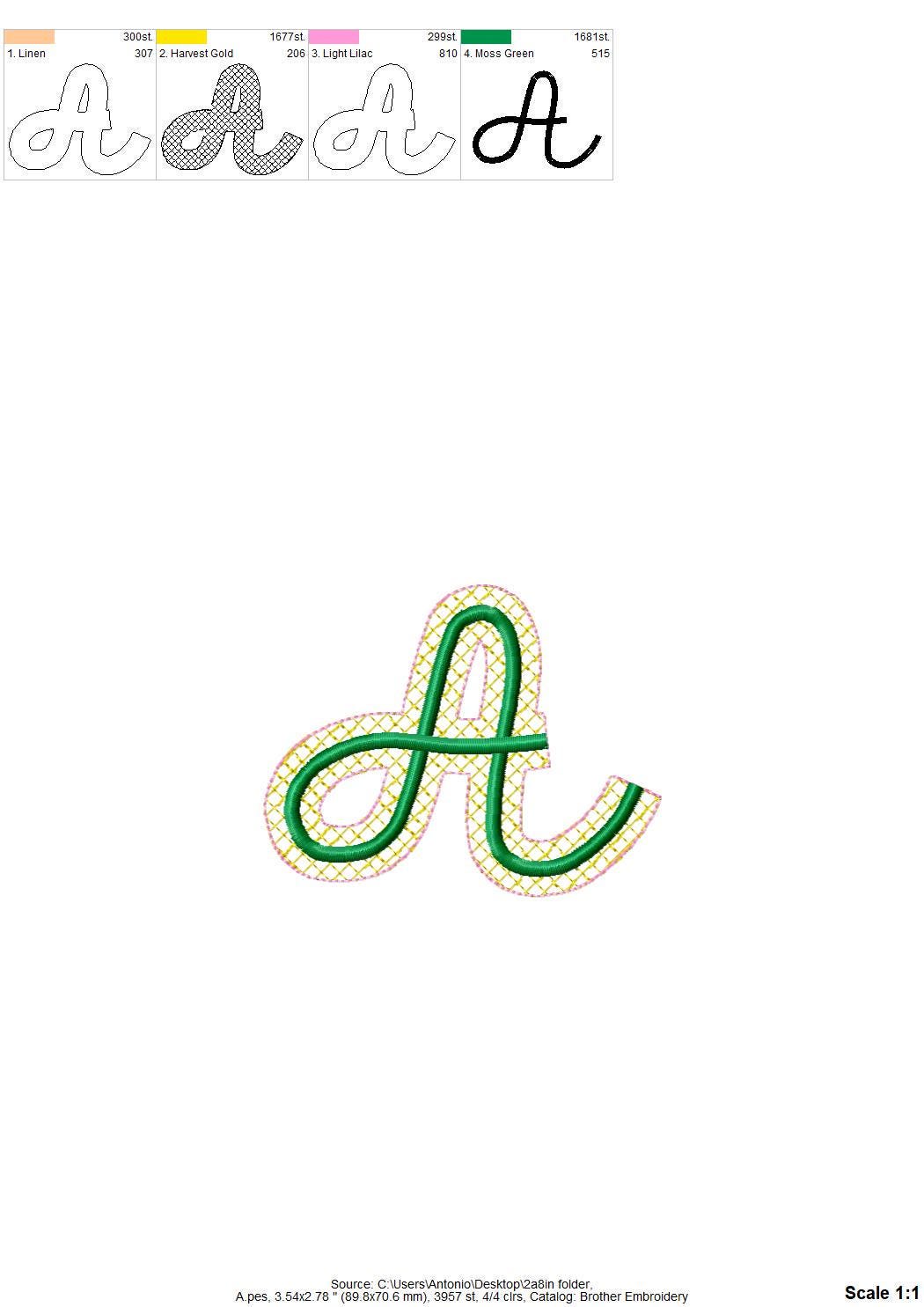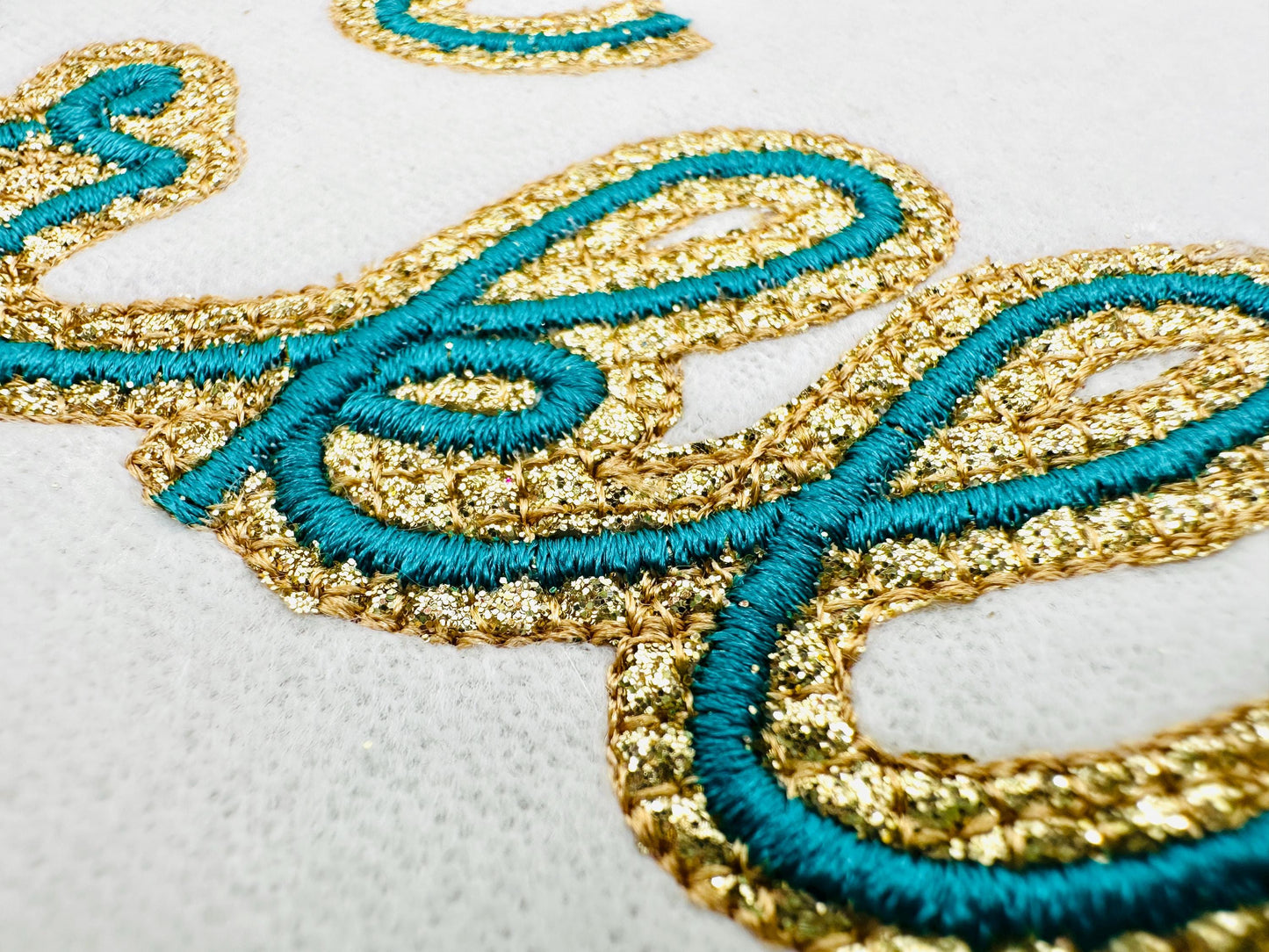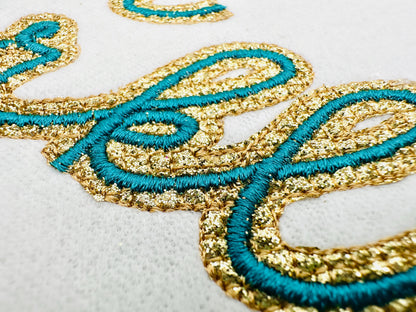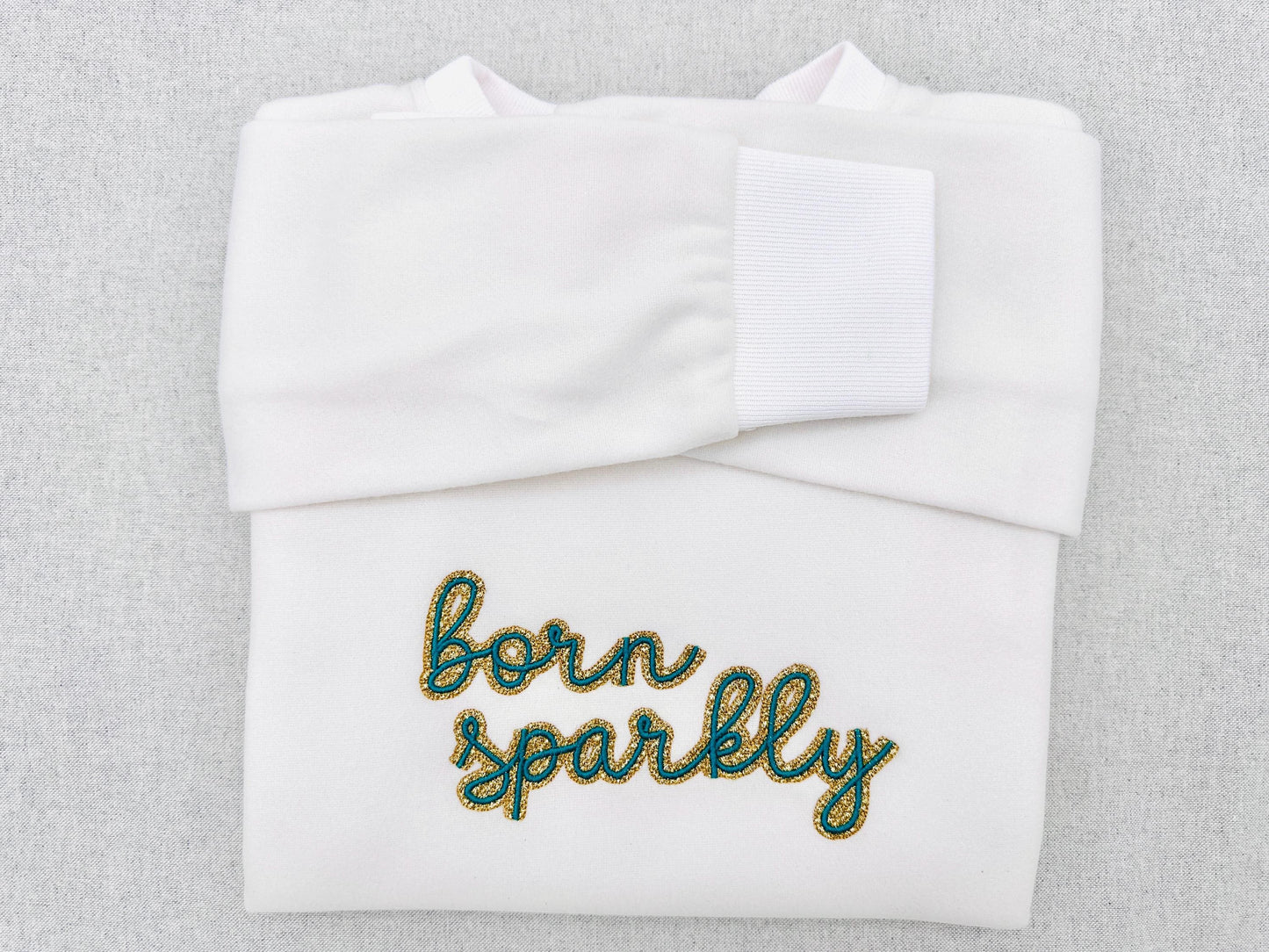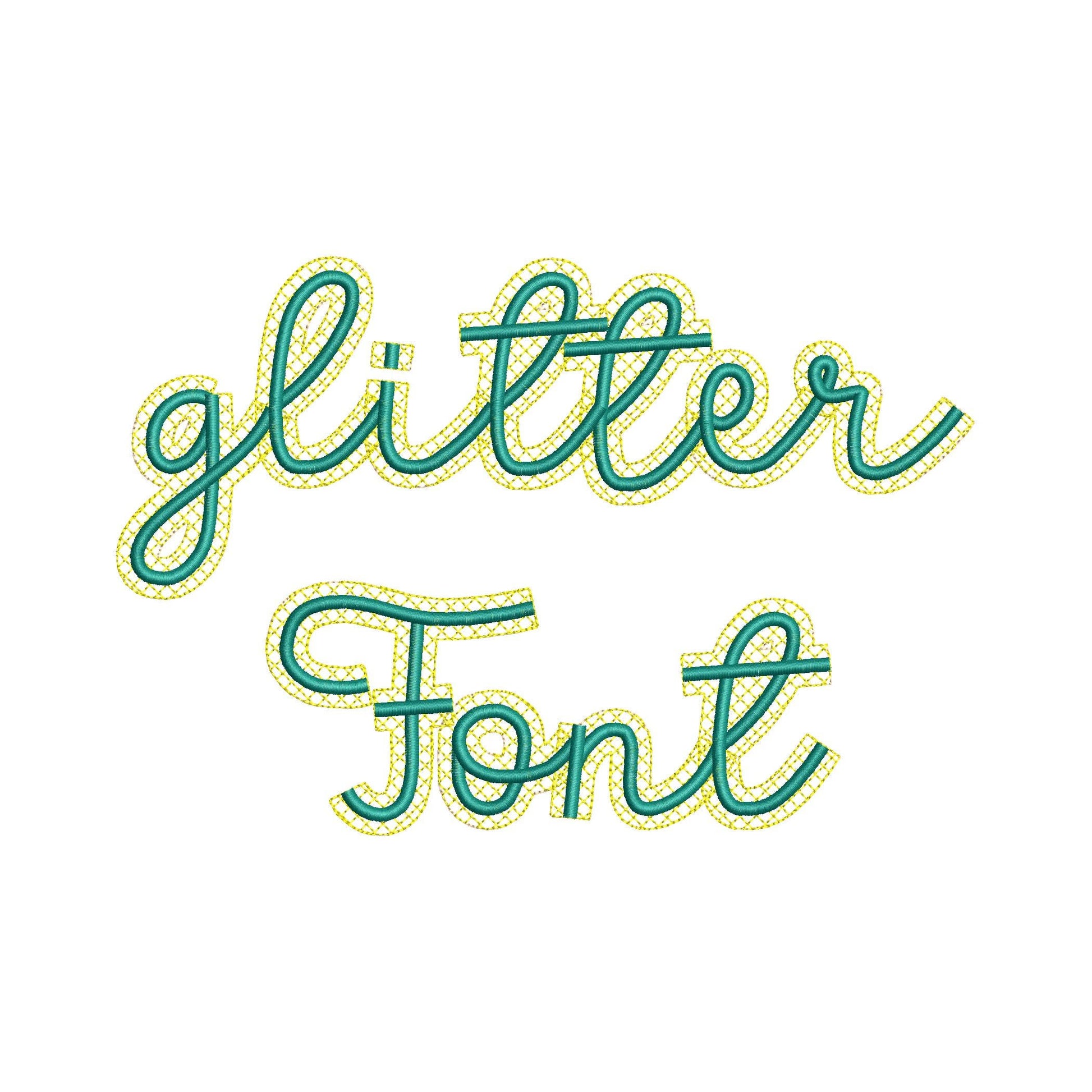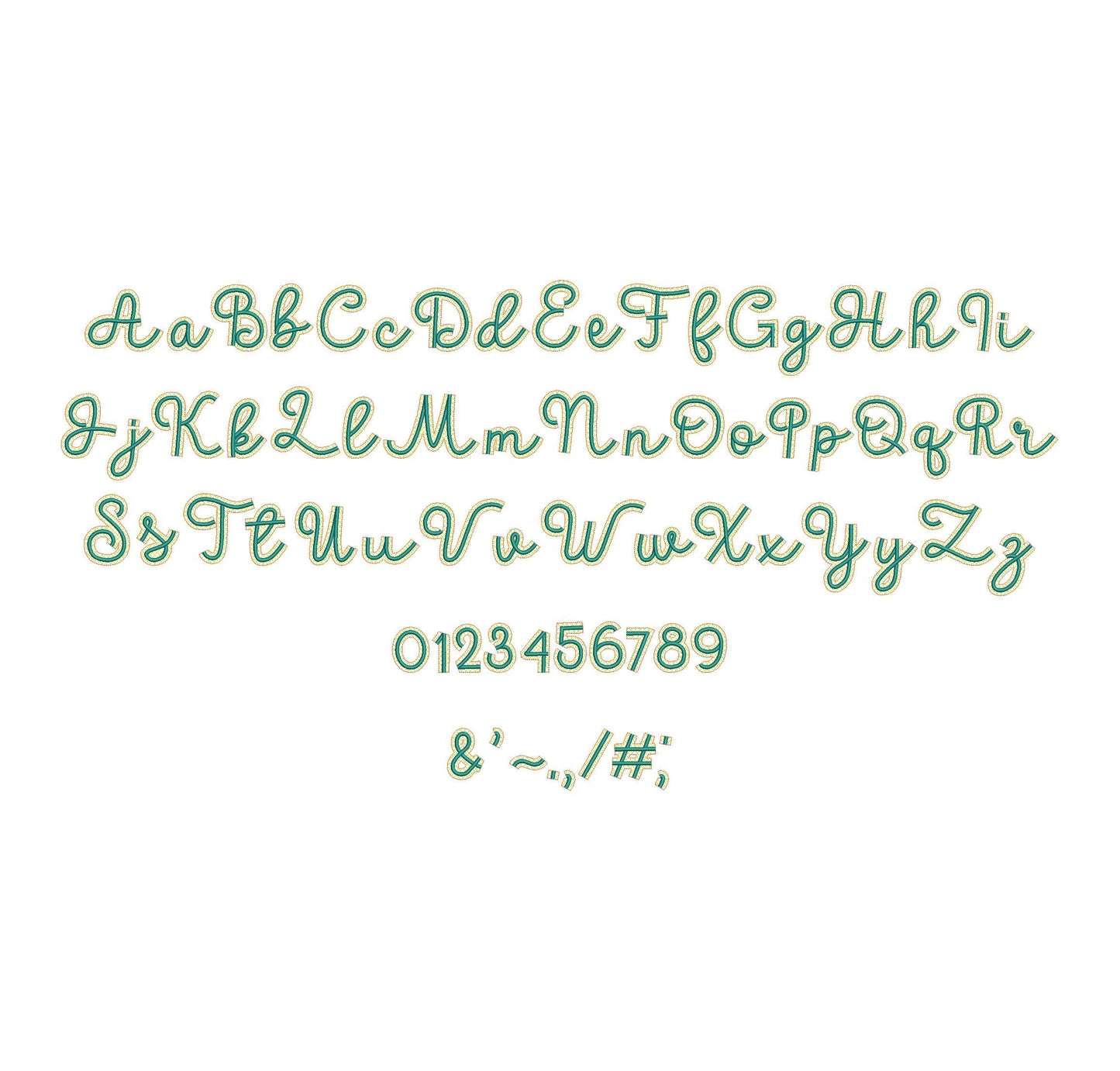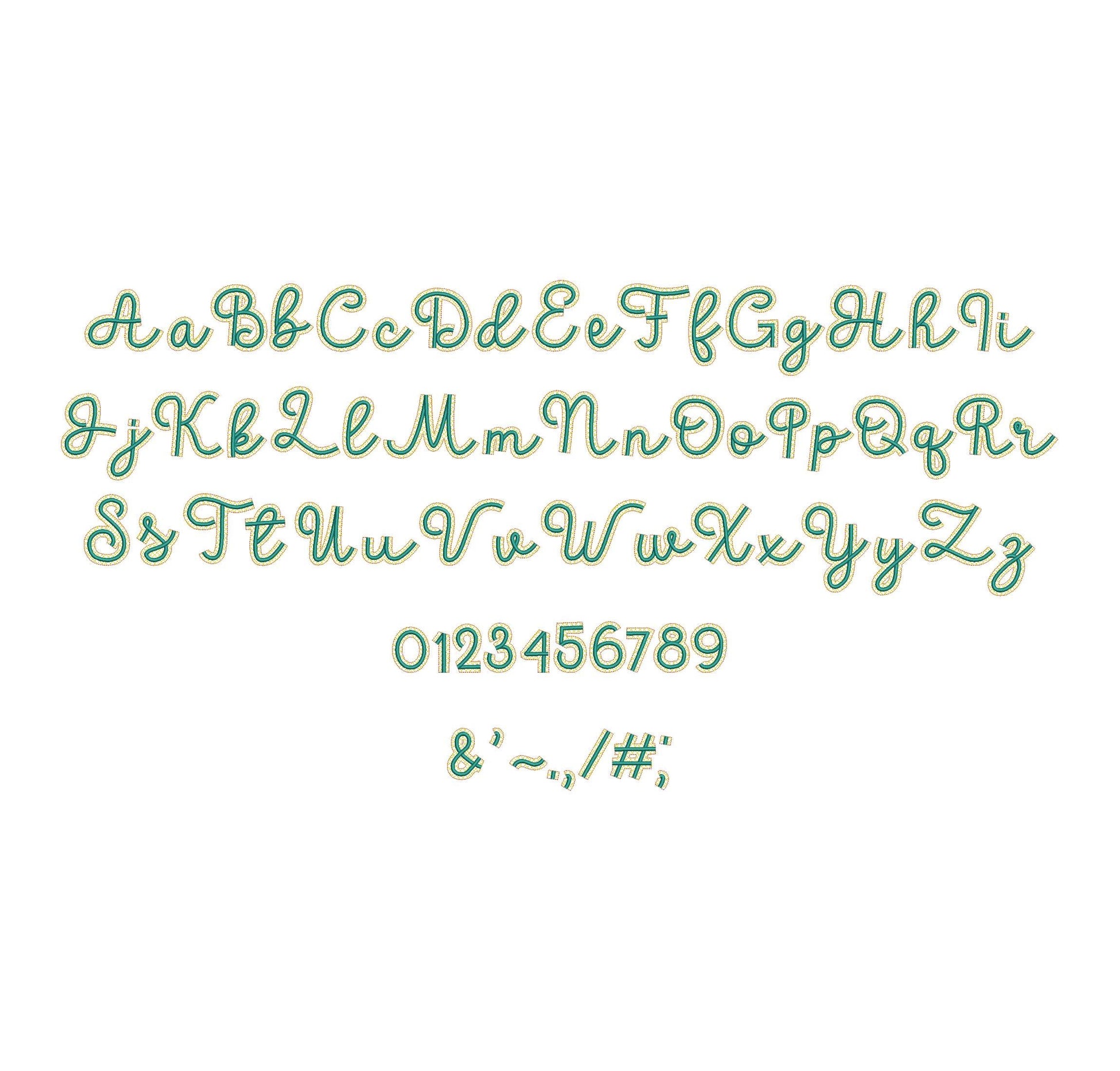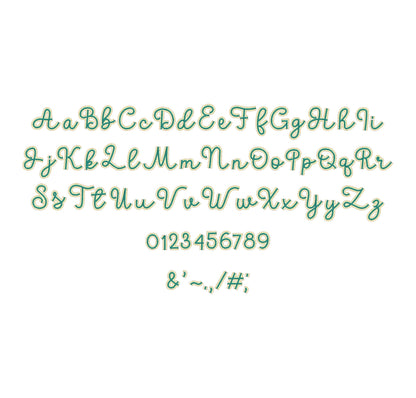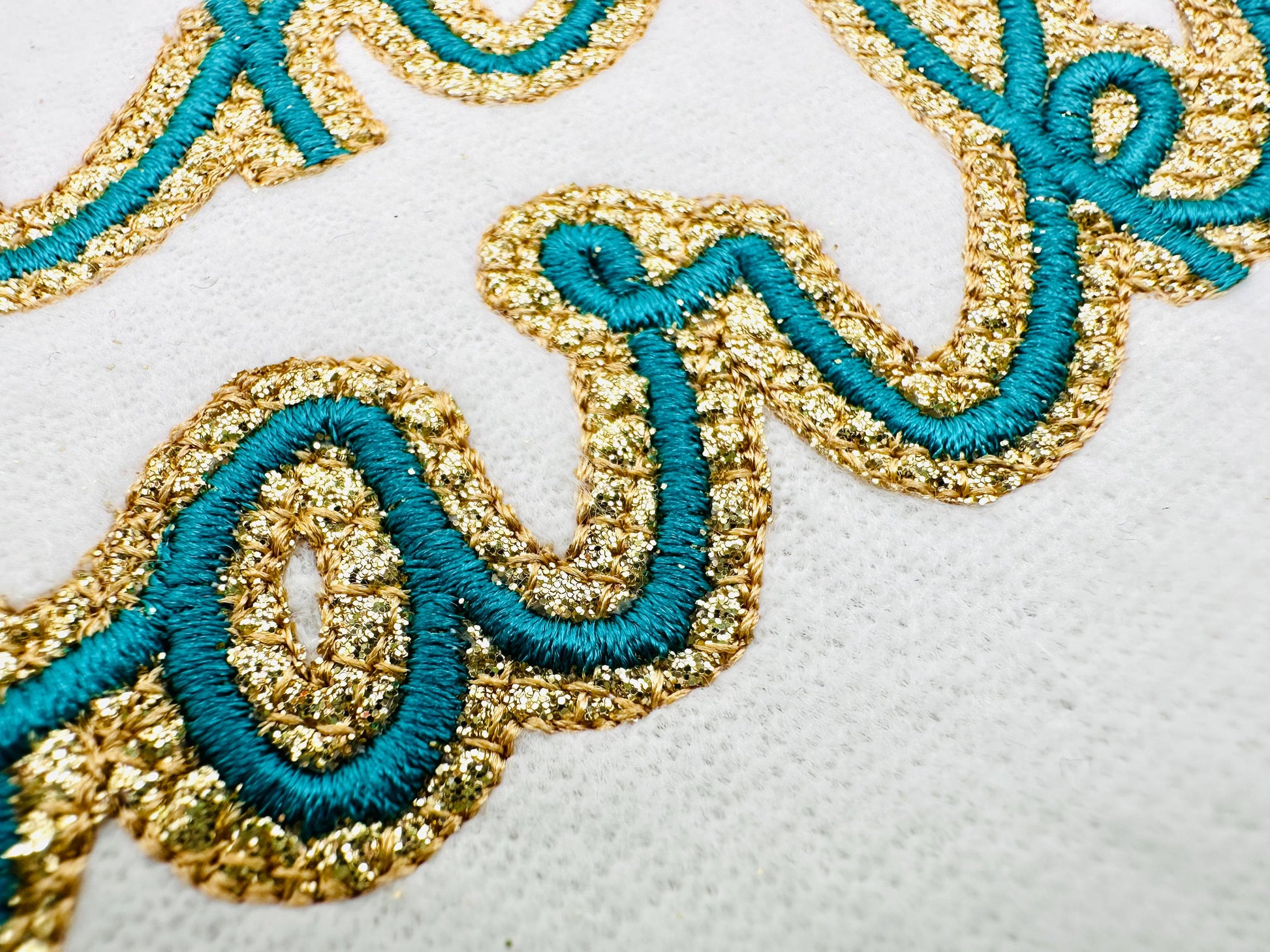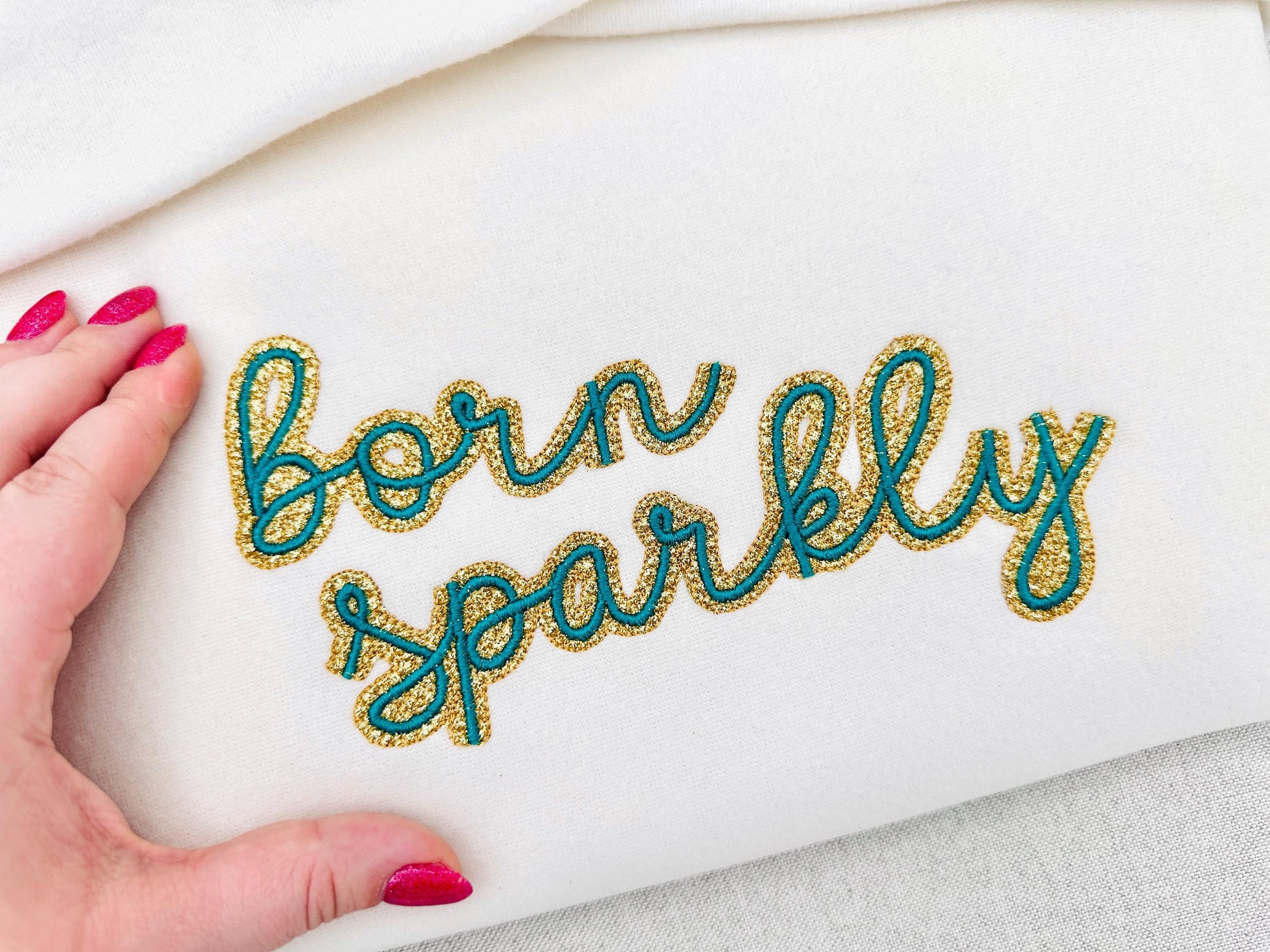
Or click to open the linkA handwritten script font with a glitter heat transfer vinyl layer and a satin stitch edge. Sparkly names and monograms on shirts, bags and party outfits.
The letters come in six sizes: 1.4, 1.8, 2.3, 2.8, 3.3 and 4 inches. Glitter vinyl is stitched down like applique and finished with a satin stitch edge. Includes uppercase and lowercase letters A to Z, numbers 0 to 9 and punctuation.